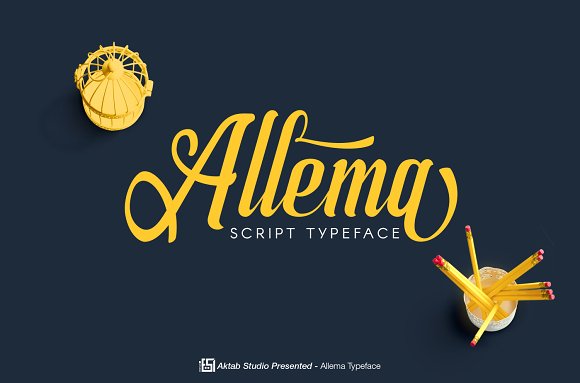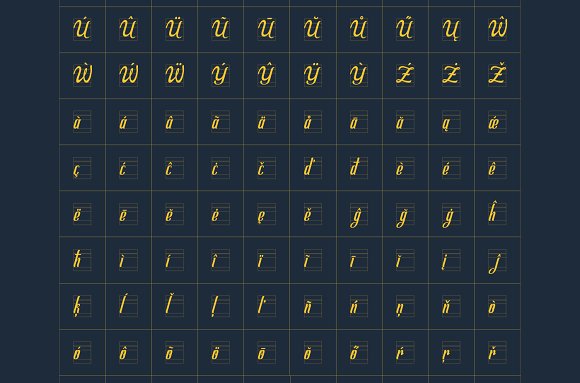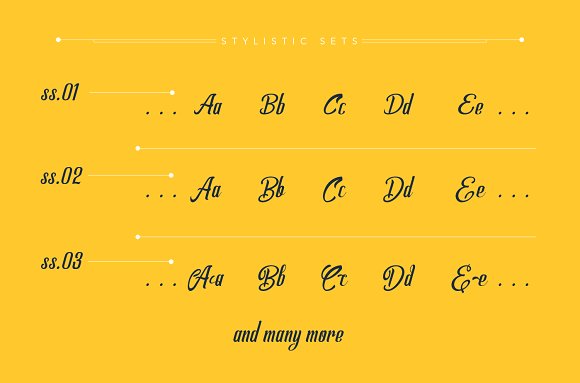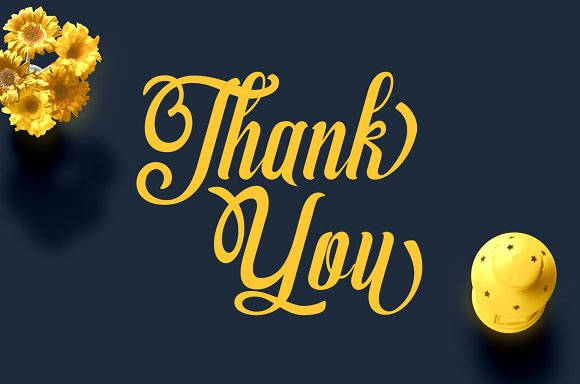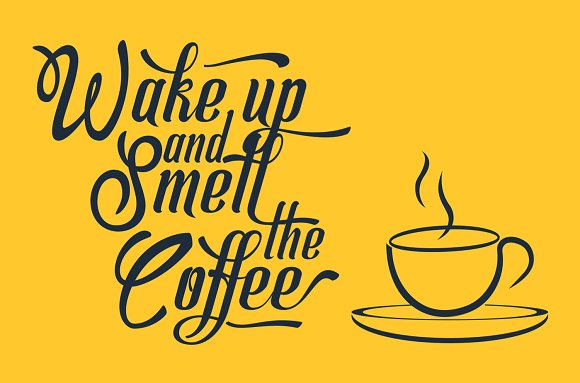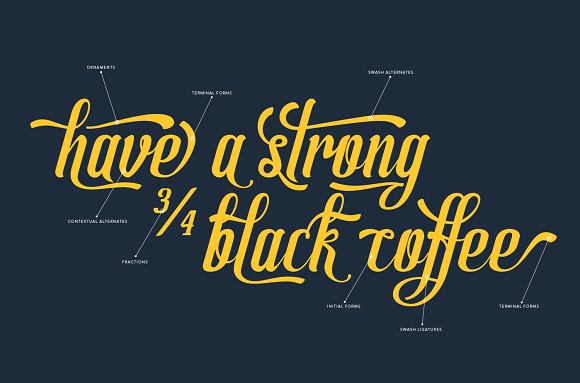
Allema Font
About Allema Font
The Allema Script font is a modern calligraphy-style font.
This stunning handwritten font features 1000+ handmade glyphs. It’s created by the Aktab Studio and is PUA encoded. The Allema Script has the following features
Standard Ligatures
Discretionary Ligatures
Contextual Alternates
Stylistic Alternates
Swashes
Fractions
Stylistic Sets
Multilingual Support